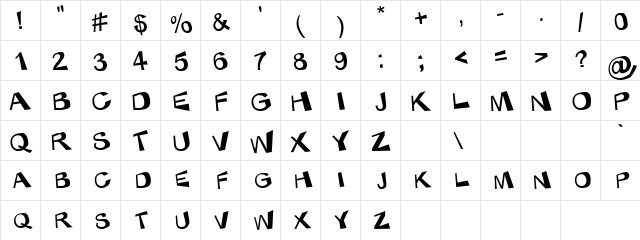
Quick Fence Regular
Design Context for Quick Fence Typeface
Quick Fence is a composed and adaptable typeface that performs quietly and consistently across a wide range of design contexts.